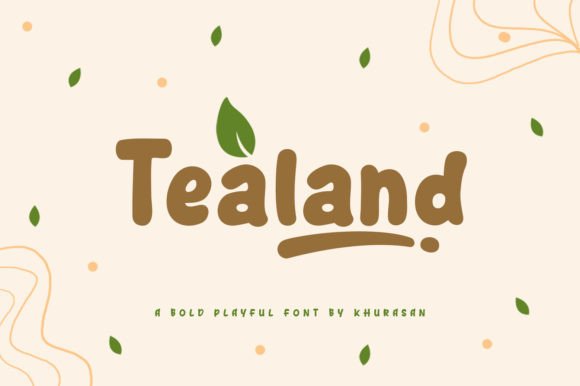
Introducing Tealand Font, the ultimate choice for font enthusiasts seeking a modern and cute display font that effortlessly enhances posters, logos, magazines, book covers, banners, and so much more! Created by the talented Khurasan, this font is more than just a typographic masterpiece; it's a gateway to unlocking your creative potential.
With Tealand Font, your designs will captivate and inspire, leaving a lasting impression on anyone who lays eyes on them. Its perfect blend of elegance and playfulness adds a touch of charm to any project, making it ideal for various industries and creative endeavors.
Looking to create a captivating film poster? Tealand Font is the answer! Its unique style and attention-grabbing features make it the perfect companion for cinematic artwork. With just a few clicks, your movie's title will come to life, drawing viewers in with its captivating allure.
Not limited to film posters, Tealand Font effortlessly adapts to any design project. Whether you're working on a logo for a trendy startup, a mesmerizing magazine layout, or a striking book cover, this font will elevate your creations to new heights. Its versatility shines through, effortlessly complementing your ideas and giving them an edge that demands attention.
But Tealand Font doesn't stop there. Its appeal extends even further, making it an indispensable asset for banners, social media graphics, websites, and more. With every stroke and curve, this font adds character and personality to your visual communications, leaving a lasting impact on your audience.
By choosing Tealand Font, you're not just acquiring a font; you're gaining a powerful tool to express your creativity and make your designs stand out from the crowd. Its captivating allure, combined with its vast range of applications, makes it a must-have for designers, marketers, entrepreneurs, and anyone seeking to make a statement.